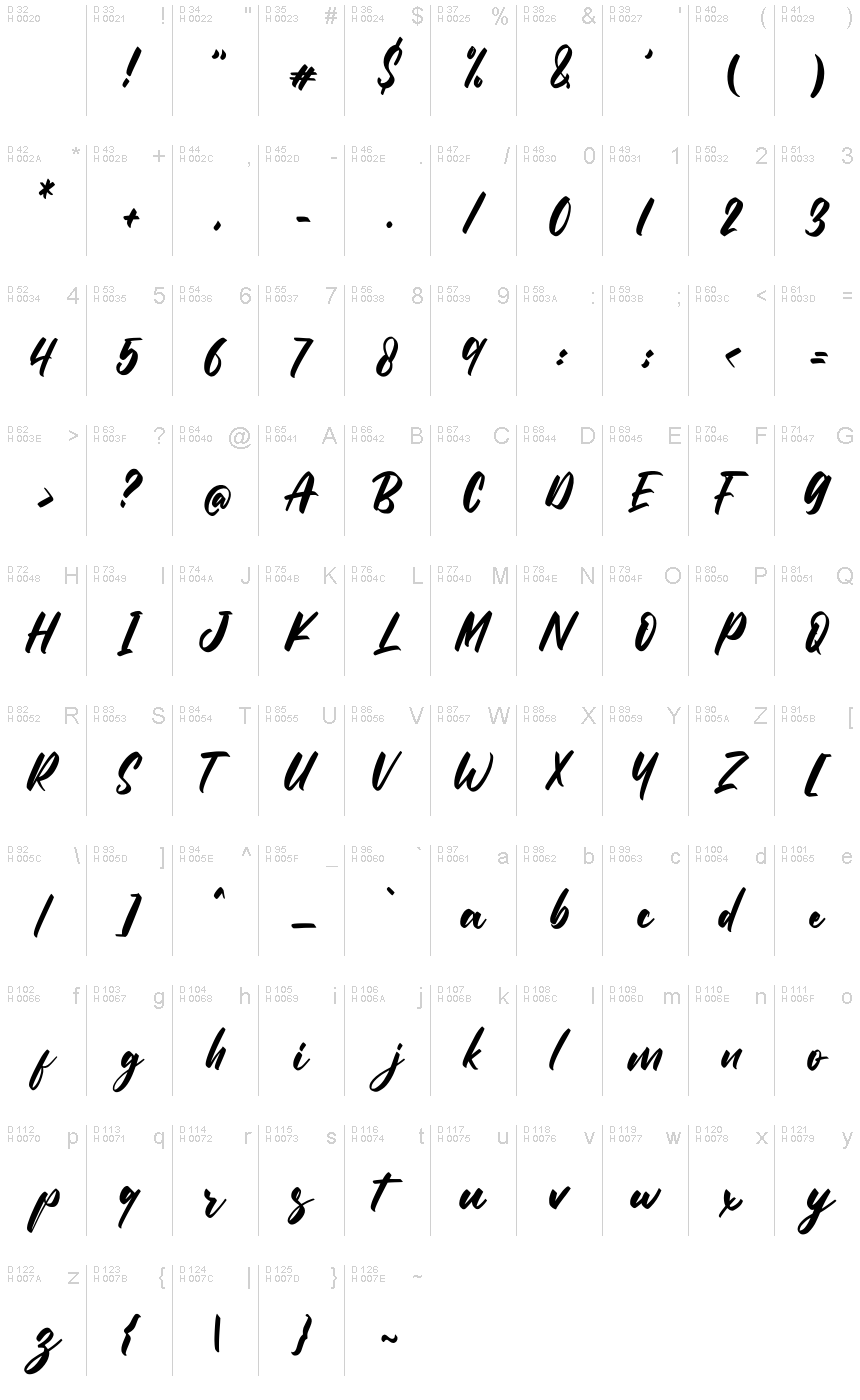
Bartolome
Bartolome, designed by FatmaStudio, is a brush-style font that exudes a handcrafted charm. It brings an organic warmth to any project with its fluid strokes and a casual yet elegant flair. The expressive swashes and slightly varied stroke widths evoke the authenticity of hand lettering, making it ideal for designs that require a personal touch.
Perfect for branding, invitations, and advertising, Bartolome's artistic nature allows it to stand out in creative and informal contexts. Its friendly and approachable character also makes it suitable for packaging design or editorial work where a touch of personality is desired. Embrace the distinctive style of Bartolome to infuse your next project with its unmistakably human feel.